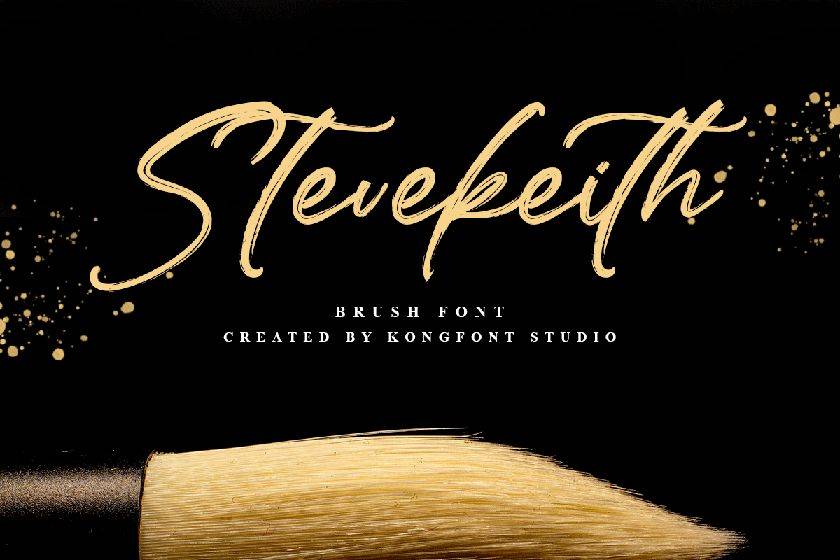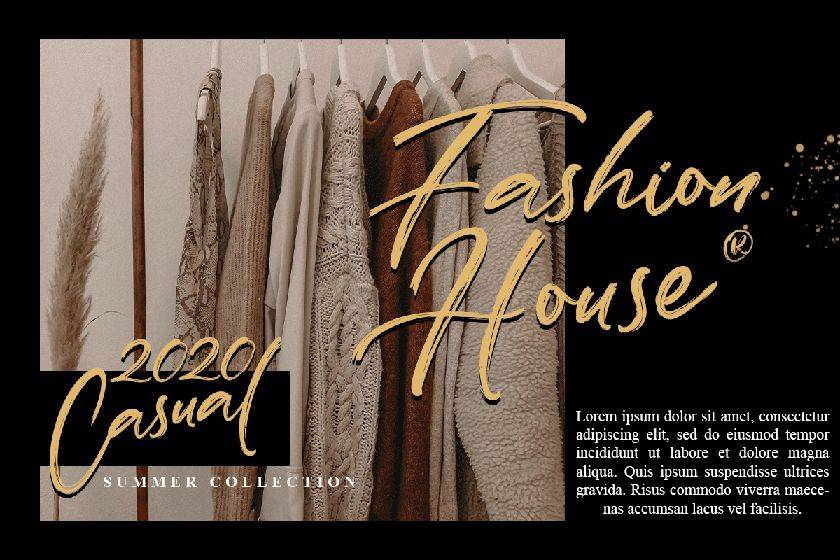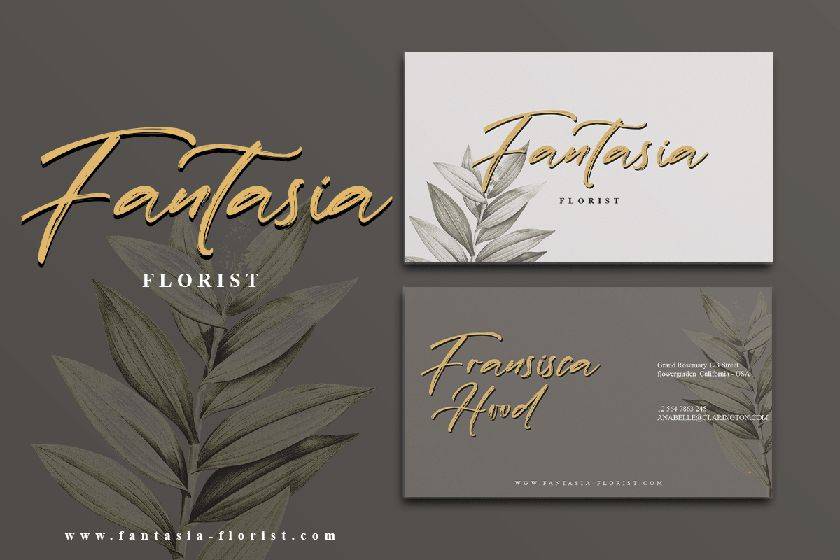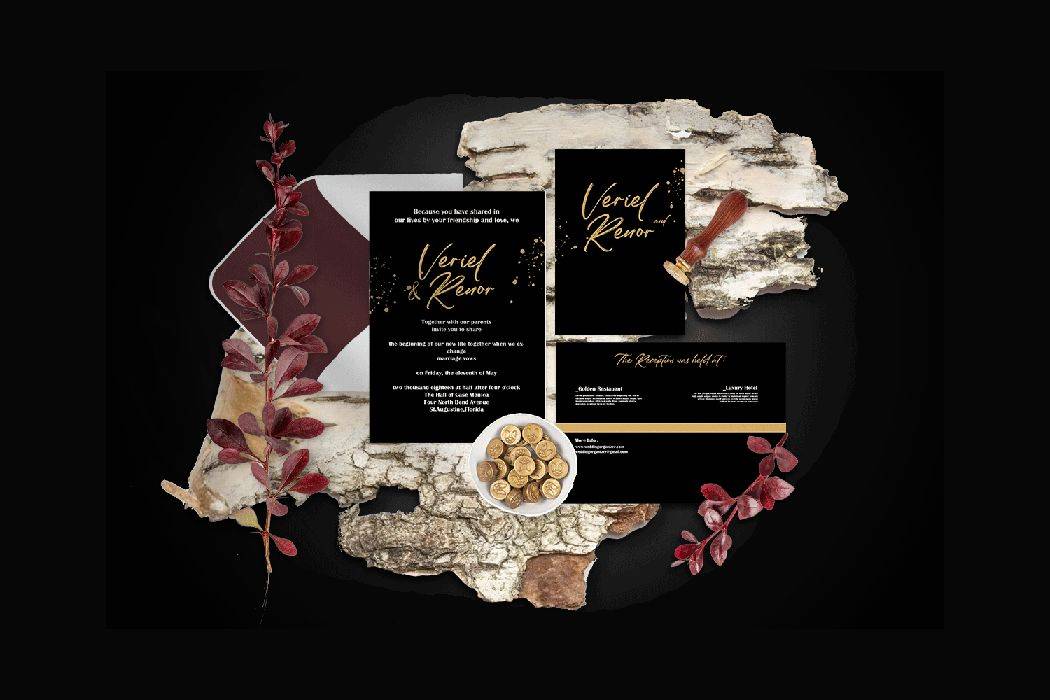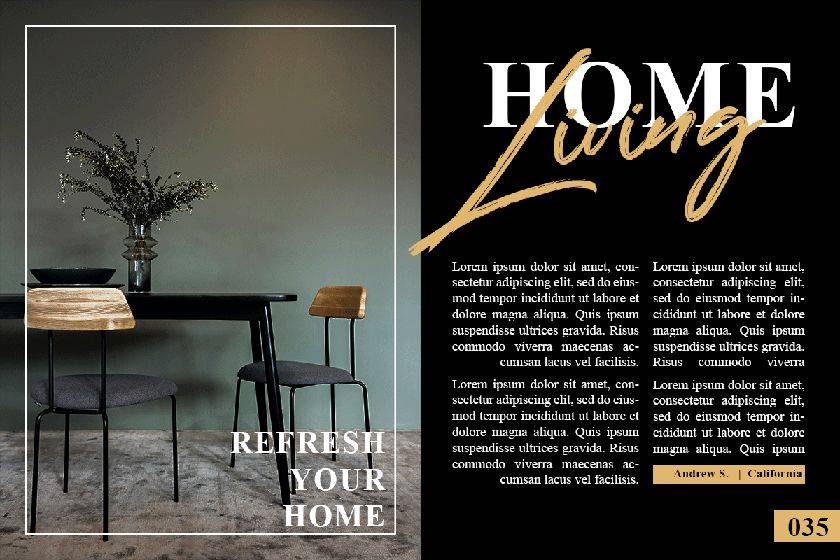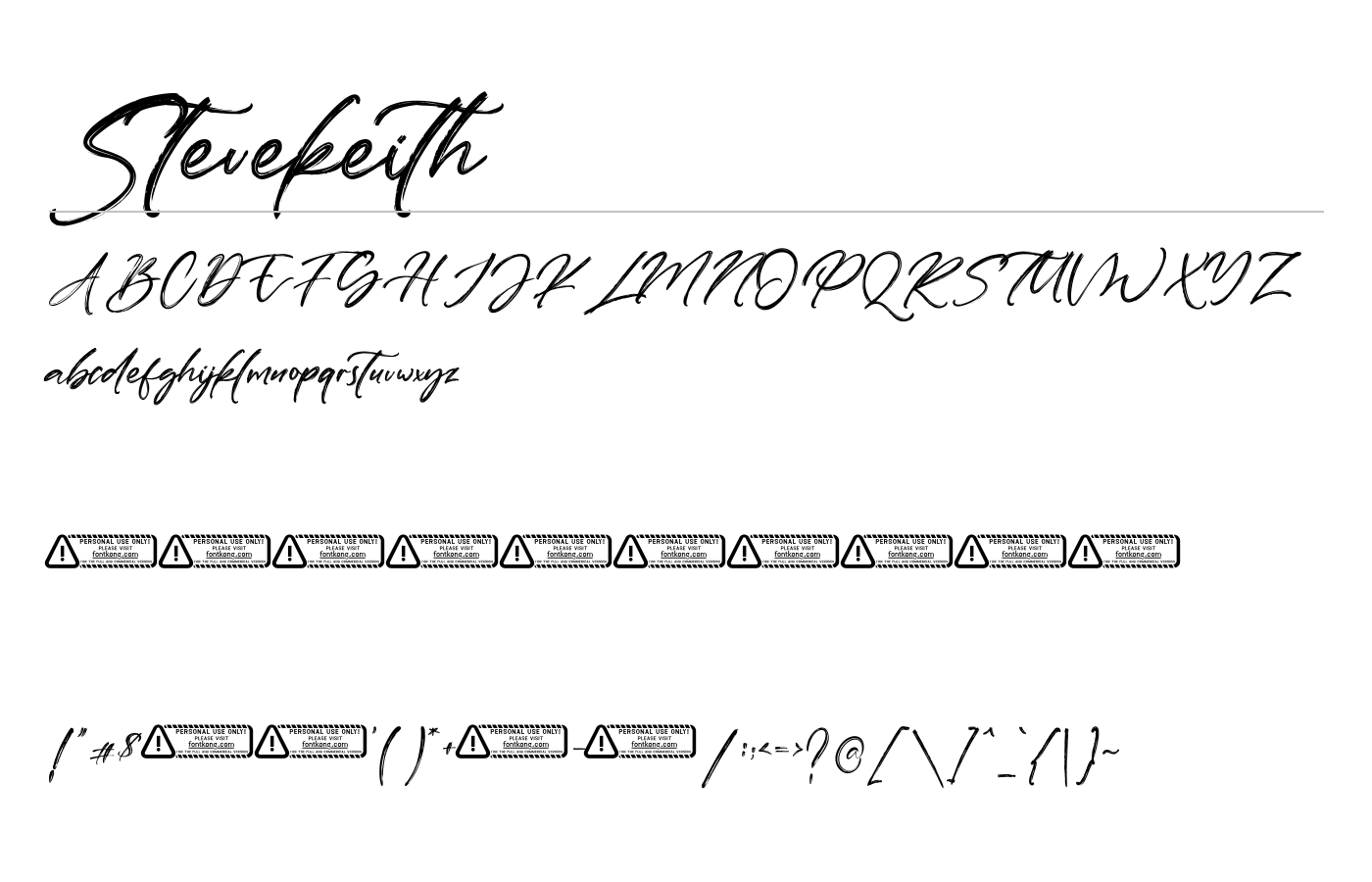
Stevekeith is an elegant script font that features fluid, hand-drawn strokes with a lively and natural flow. Its thin, slightly irregular lines and distinctive letterforms convey a personal and artistic touch, making it ideal for creative projects, invitations, branding, and designs that seek a stylish yet approachable feel. This font works especially well for adding a sophisticated, handcrafted look where a modern and expressive personality is desired.
Stevekeith Font
About Stevekeith Font
| Font family | Stevekeith Font |